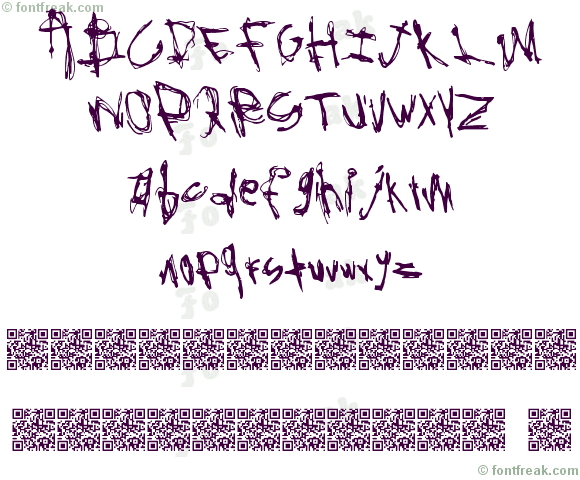
RockBait
The RockBait font by Xerographer Fonts is a unique display typeface that encapsulates an edgy, unconventional aesthetic perfect for various creative projects. This font showcases a hand-drawn style with a slightly erratic, organic feel that adds a personal touch to any design. Its irregular stroke weight and varying heights contribute to a dynamic look, while the spacing between letters is intentionally loose, enhancing its casual, free-spirited vibe. The decorative elements, reminiscent of graffiti, infuse a sense of rebelliousness that makes RockBait instantly recognizable.
RockBait is particularly suitable for a range of use cases. It shines in music festival posters, where its bold, artistic flair can capture attention and convey energy. Additionally, it’s an excellent choice for skateboard brand logos, aligning perfectly with the lifestyle and culture associated with the sport. In the realm of digital content, bloggers and social media influencers can utilize this font for striking headers and graphics that stand out in crowded feeds. Furthermore, its quirky character makes it ideal for merchandise designs, such as t-shirts and stickers, attracting a youthful audience.
The target audience for RockBait includes graphic designers, small business owners, and content creators looking to make a statement with their typography. Whether you are crafting eye-catching promotional materials or unique branding elements, this font offers an exciting option for those who dare to stand out.